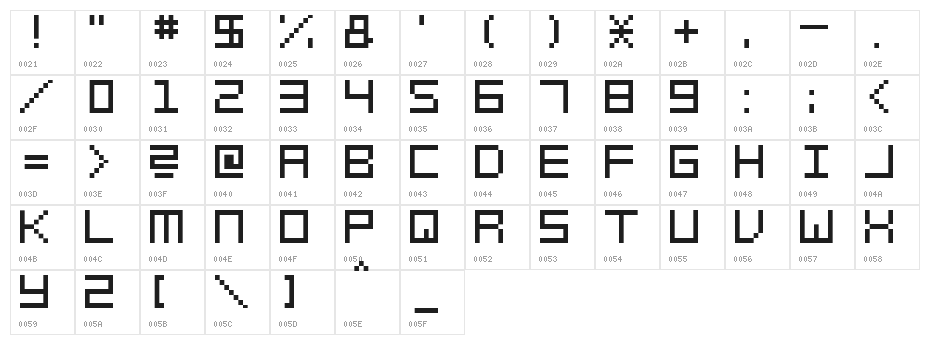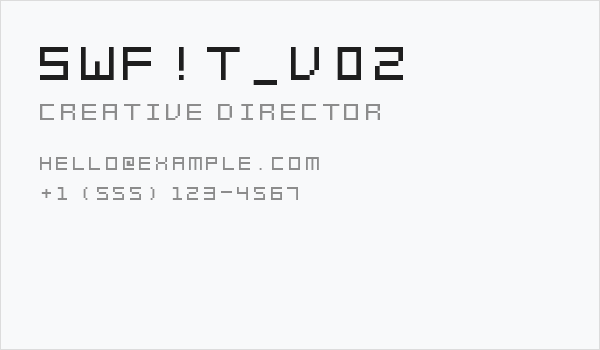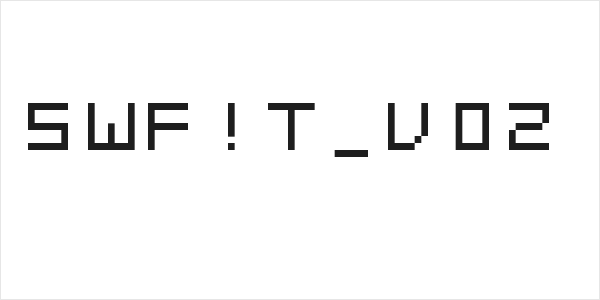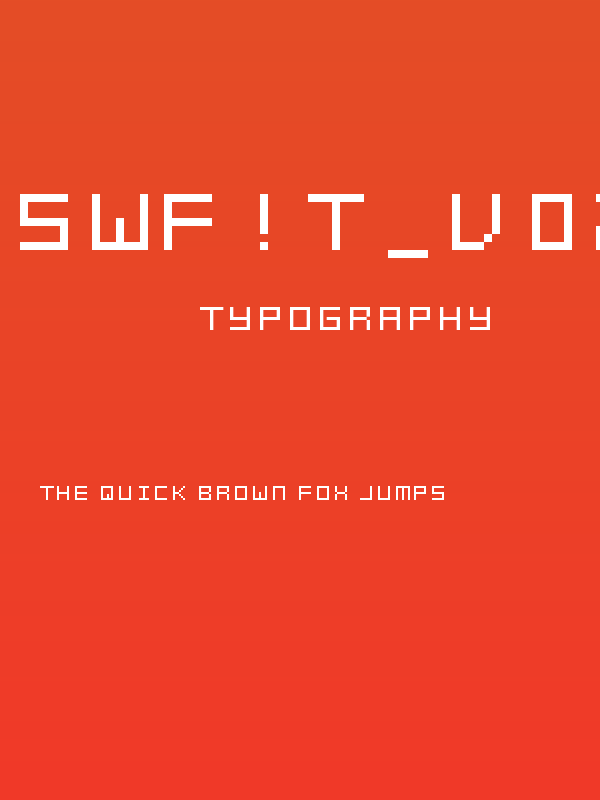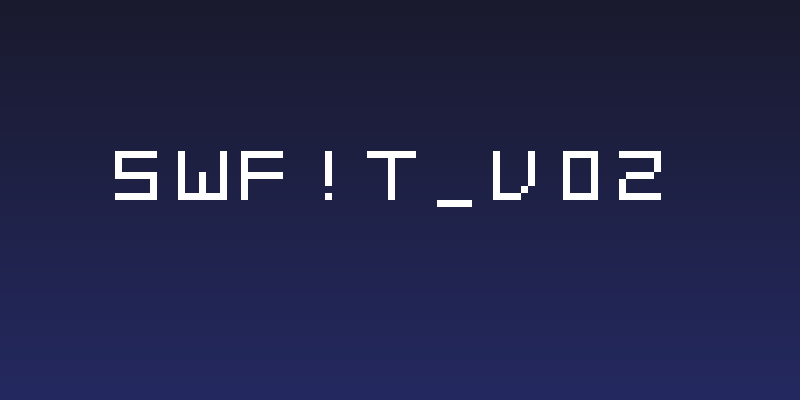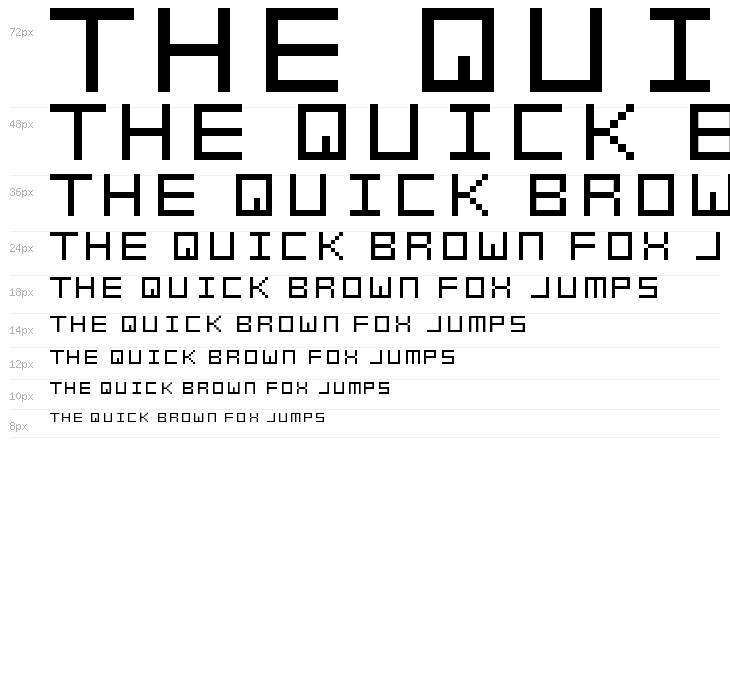
SWF!T_v02 Font
SWF!T_v02 Description
This font is a pixelated, monospaced typeface that evokes a retro, digital aesthetic reminiscent of early computer screens and video games. Each character is constructed with a grid-like precision, giving it a blocky, geometric appearance. The uniformity in character width and height contributes to its monospaced nature, making it ideal for coding environments or any project requiring precise alignment. The font's simplicity and clarity ensure readability, even at smaller sizes, while its distinct style adds a nostalgic charm. The characters are evenly spaced, with a consistent stroke weight that maintains a low contrast throughout. This design choice enhances its legibility and reinforces its digital theme.
| Overall Style | Retro, Digital |
| Use Case | Coding, Digital displays, Retro designs |
| Proposed Projects | Ideal for retro-themed designs, coding environments, video game interfaces, and digital art projects. |